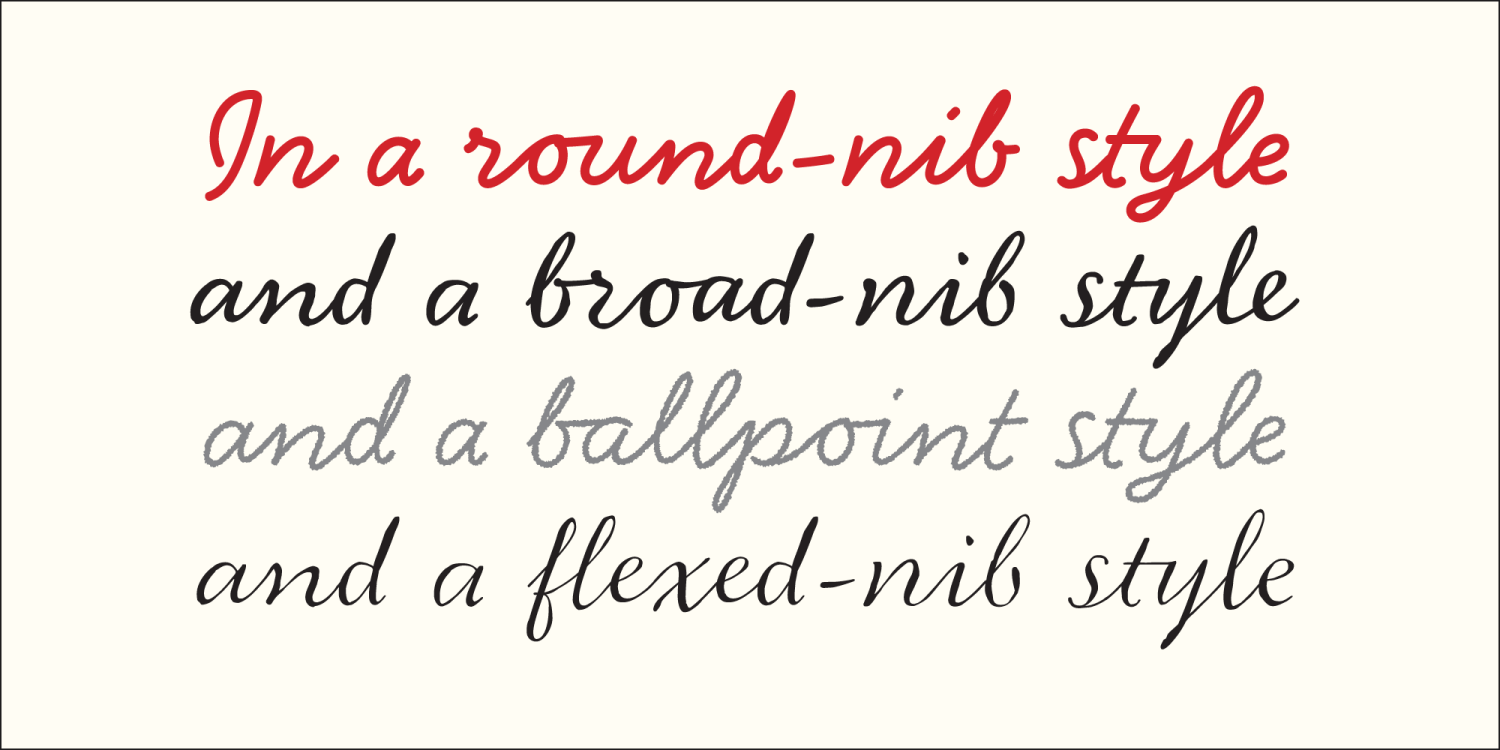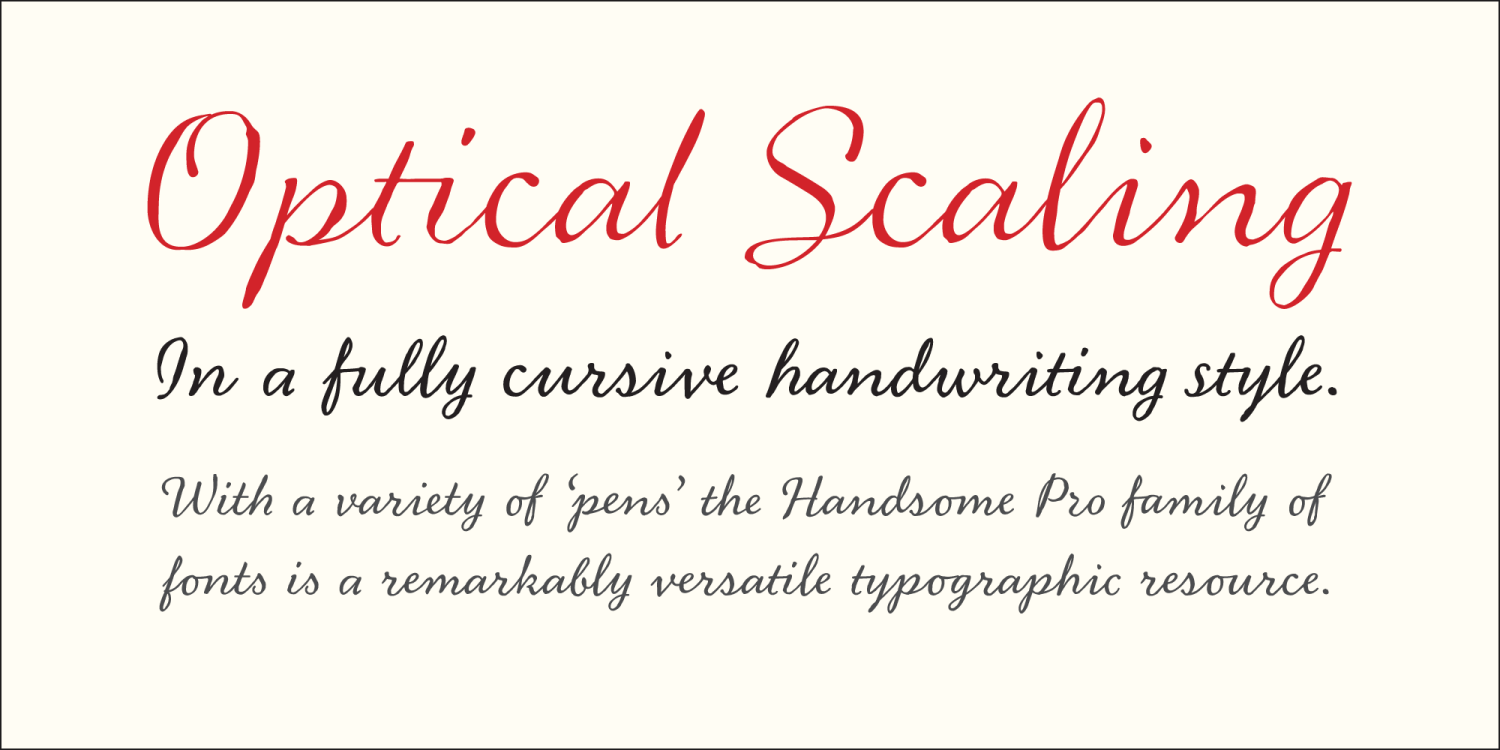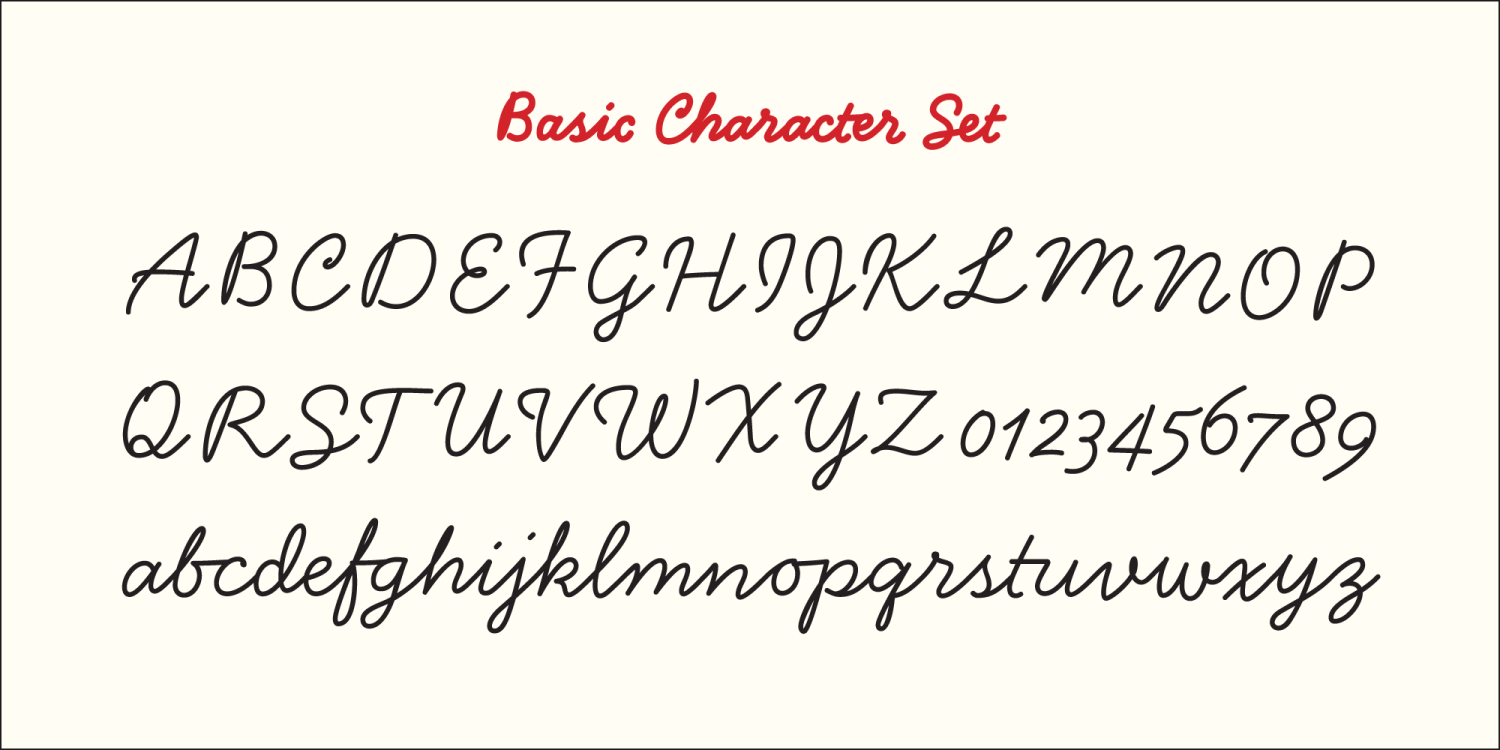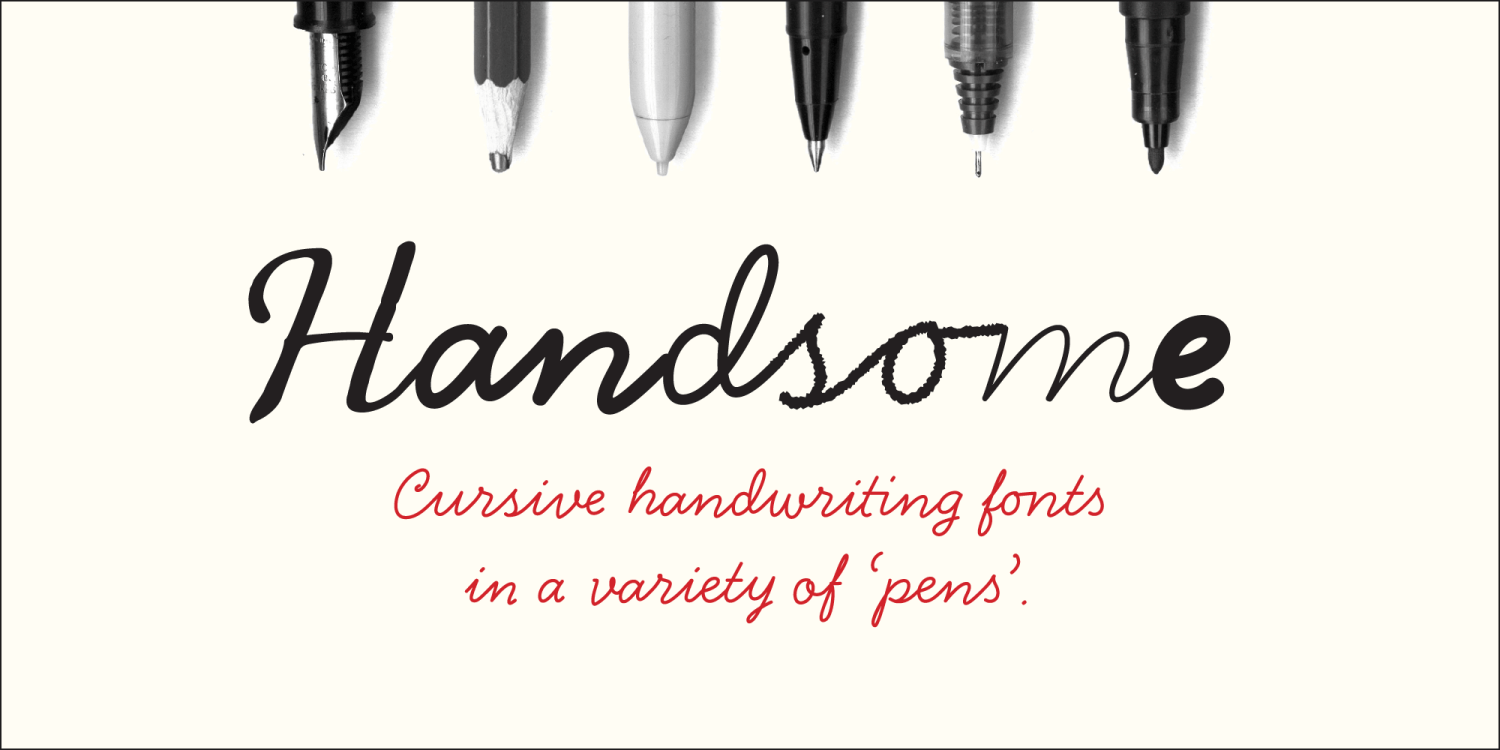
Handsome Pro
About Handsome Pro
The digital font as biomimetic software, making robot writing that disguises its artifice behind a shifting cast of character alternates. In parroting the joining rules of cursive script Handsome holds a mirror to pen culture, revealing an affinity between…